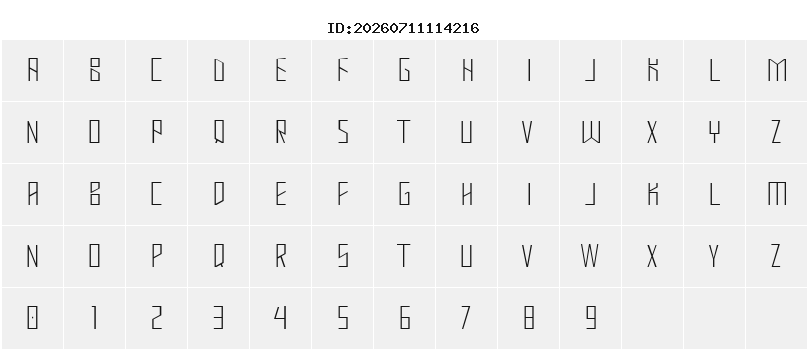
• Font Name: Mastodon Hairline
• Full Font Name: Mastodon Hairline
About Mastodon Hairline.ttf
Mastodon Hairline.ttf is a modern, elegant sans-serif font designed for ultimate readability and visual harmony. Perfect for branding, headlines, web design, and print materials.